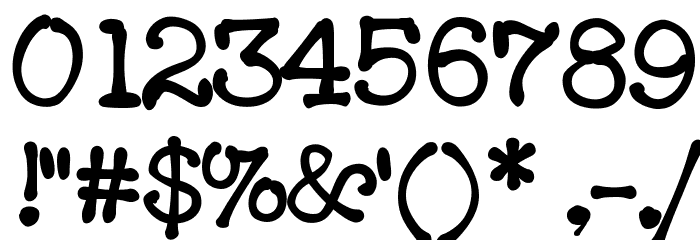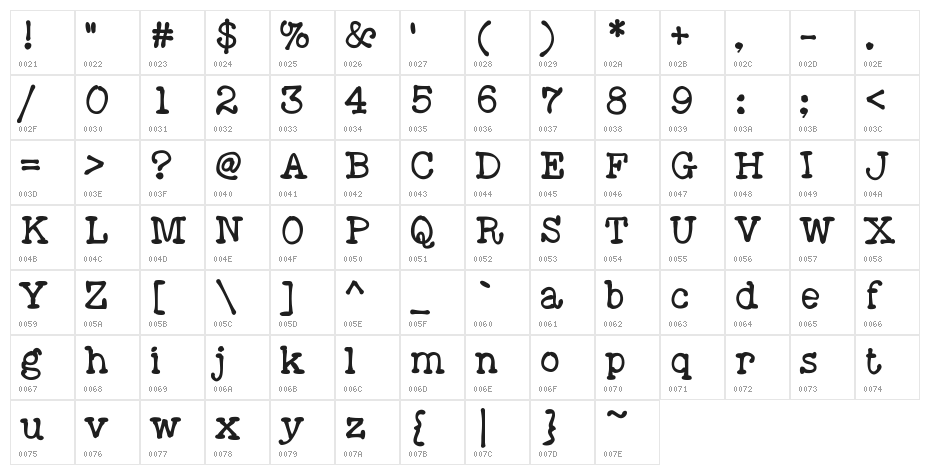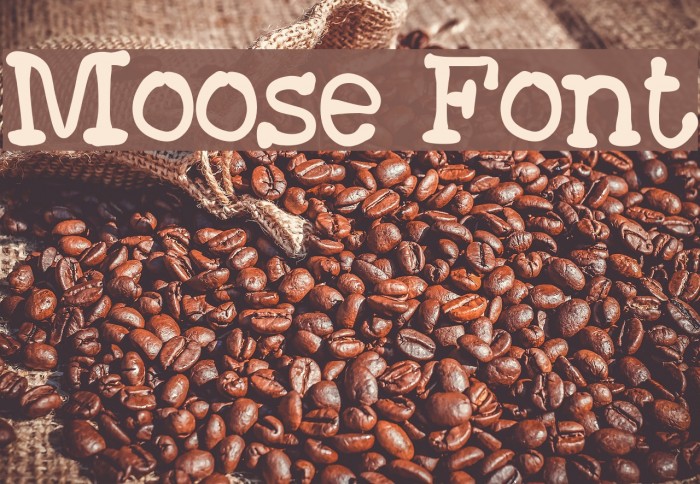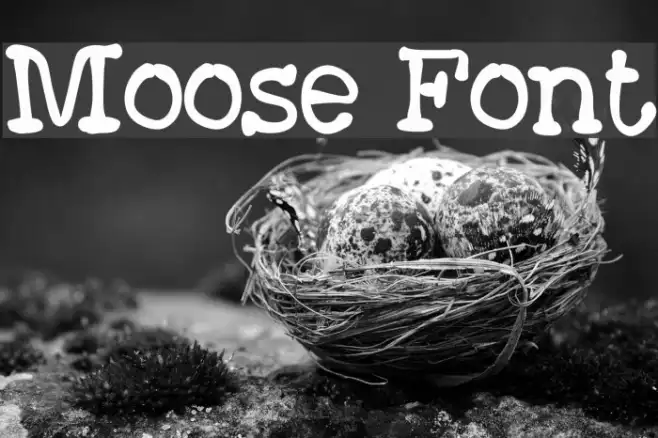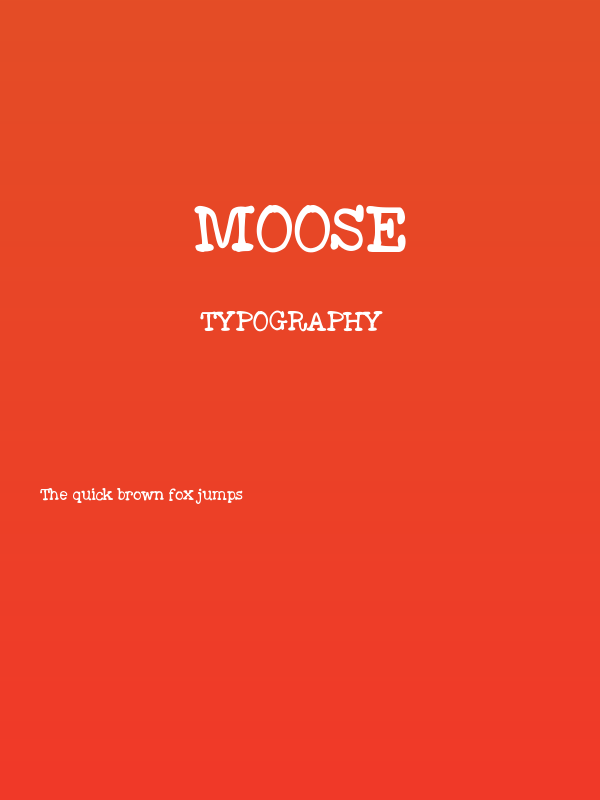
Moose Font
Moose Description
This font features a playful and bold design with rounded edges and a slightly irregular shape, giving it a whimsical and friendly appearance. The characters are thick and robust, with a consistent stroke width that adds to its boldness. The uppercase and lowercase letters maintain a uniform style, while the numerals and special characters complement the overall look. The font's unique charm makes it stand out, making it suitable for creative and informal applications. Its bold and rounded characteristics convey a sense of fun and approachability.
| Proposed Projects | Ideal for children's books, playful branding, posters, and creative projects. |